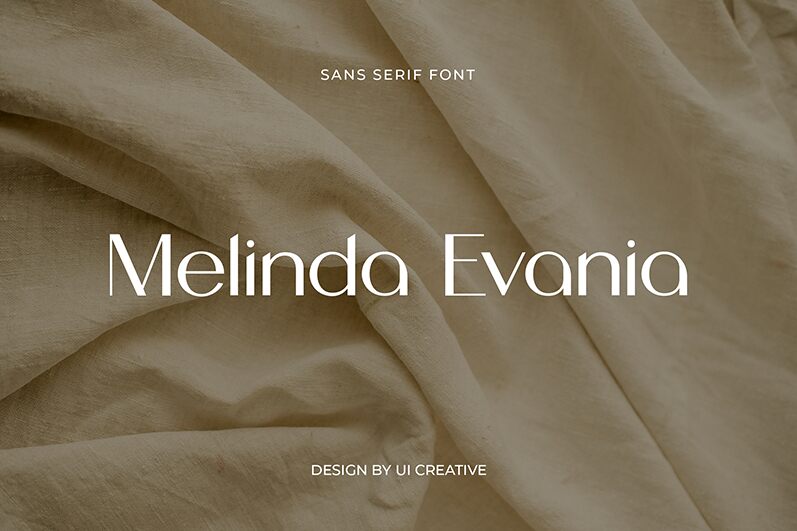
Melinda Evania
Melinda Evania, a captivating sans-serif font created by UI Creative, exudes a refined elegance and timeless allure. Its clean lines and harmonious proportions evoke a sense of sophistication, making it a versatile choice for a wide range of design applications. The font's balanced structure and subtle geometric influences lend a contemporary edge, while its seamless legibility ensures seamless readability across various contexts.
This font's adaptability makes it an ideal companion for branding, editorial layouts, and digital interfaces. Its versatility allows designers to effortlessly incorporate Melinda Evania into projects that demand a touch of sophistication, whether crafting impactful headlines, crafting elegant body text, or elevating the visual identity of a prestigious brand.